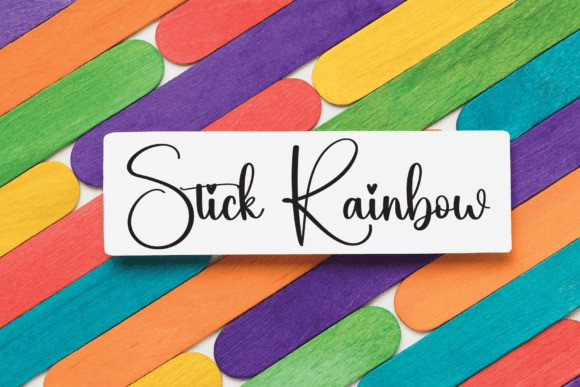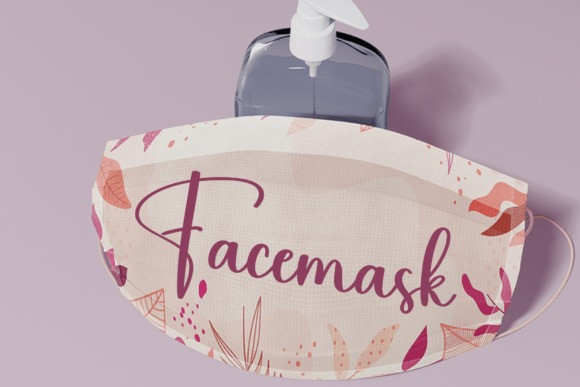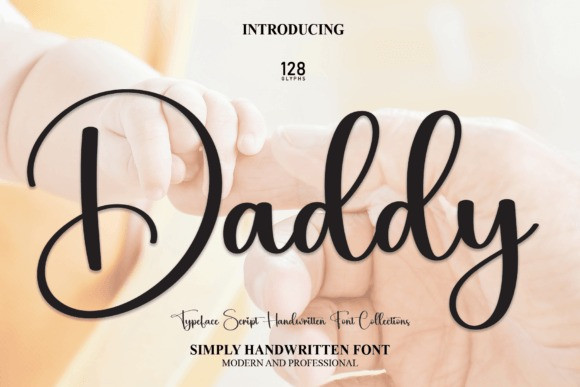
Daddy Script Font
Daddy Script Font, is a lovely and sweet handwritten script font. This gentle font will look gorgeous on a variety of design ideas. It will add a joyful and romantic touch to each of your projects!